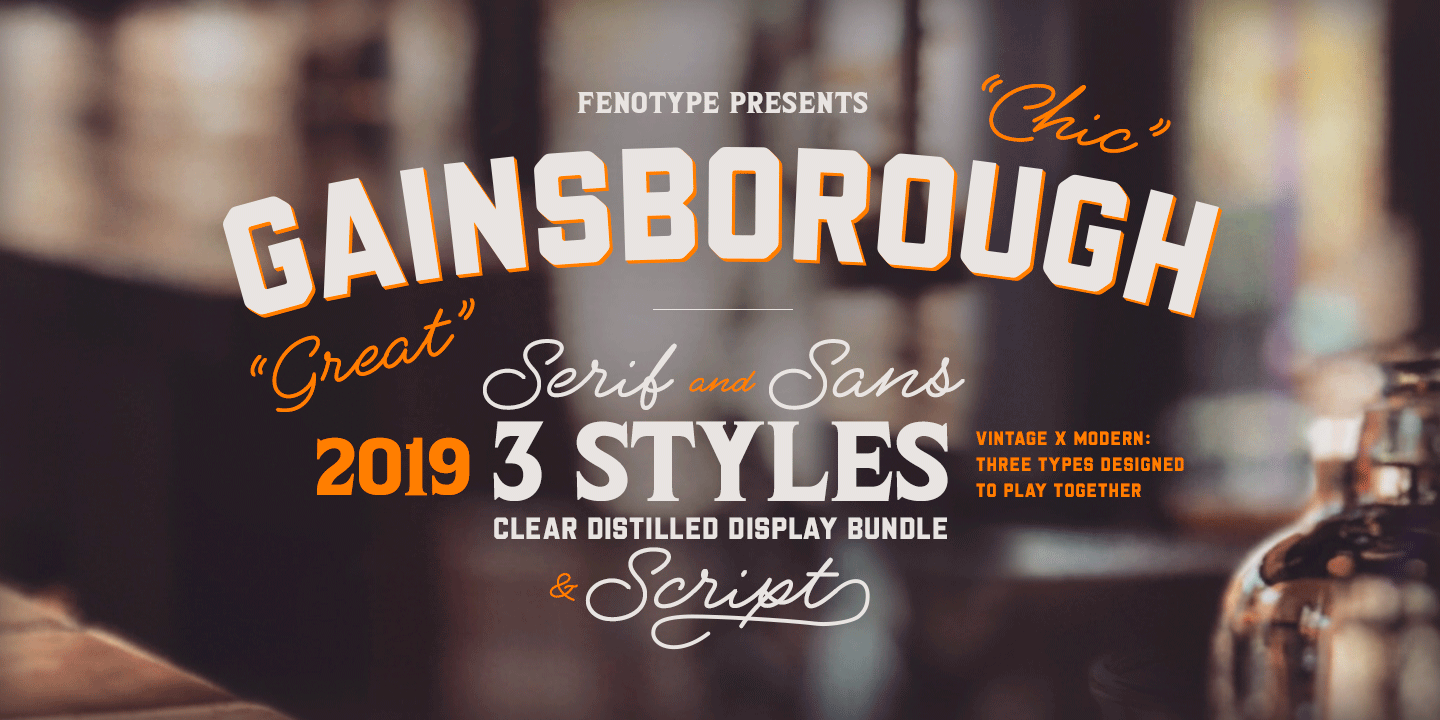
Gainsborough Font is an elegant and classic typeface, often characterized by its refined serifs and timeless appeal. It's perfectly suited for projects that demand sophistication, readability, and a touch of traditional charm, such as fine art gallery invitations, luxury brand editorial layouts, historical document reproductions, and high-end book covers. Imagine Gainsborough Font gracing the masthead of a prestigious magazine, adding an air of old-world elegance to a museum exhibit, or providing a clear and authoritative voice for classical music concert programs. Its balanced proportions and graceful serifs ensure your message is conveyed with both clarity and an undeniable sense of enduring style, making it ideal for designs that aim for both professionalism and a touch of refined heritage.
What makes Gainsborough Font truly exciting is its ability to blend classic aesthetics with modern versatility. This font excels in creating a sense of established authority and readability, making it suitable for both headlines and longer blocks of text where legibility is paramount. The thoughtful construction of each character, often featuring delicate serifs and well-proportioned forms, ensures high clarity across various sizes and mediums. It’s more than just a typeface; it’s a strategic design tool that helps convey reliability, elegance, and a polished aesthetic. Gainsborough Font stands out for its broad adaptability and its capacity to elevate any design with its graceful yet profound visual presence.
Gainsborough Font typically comes with a comprehensive family to provide extensive flexibility for diverse design applications. This usually includes a range of weights such as light, regular, medium, and bold, often accompanied by corresponding italic versions. Some families might also offer condensed or extended styles, along with a variety of ligatures, further enhancing its typographic possibilities. This extensive Gainsborough Font Free Download family ensures you have all the tools necessary to create cohesive and dynamic designs, allowing for consistent branding and powerful visual communication across all your platforms, from print media to digital interfaces.